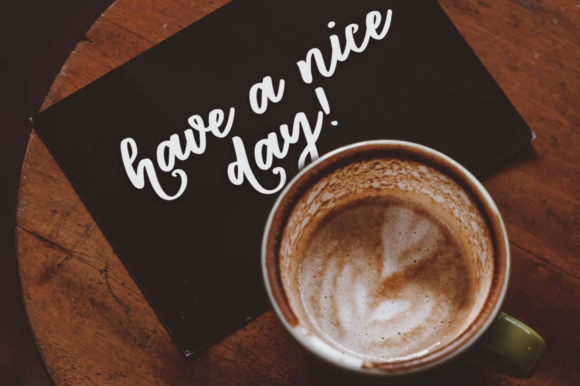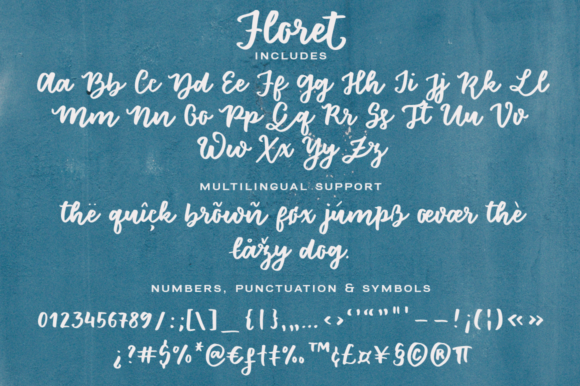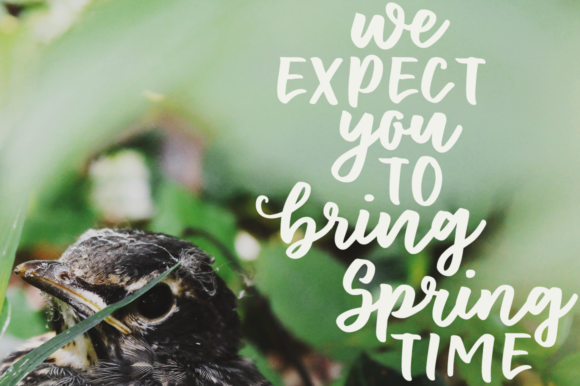
About Floret Font
“Floret” emerges as a fashionable and delicate script font, radiating an aura of elegance and refinement. Its versatile nature makes it a perfect fit for an array of projects, ranging from logos and branding initiatives to labels, photography, watermarks, and special events. This font graces your creations with a captivating script taste, turning each endeavor into a masterpiece of beauty and sophistication.
Visualize “Floret” as a brush that paints your designs with grace and finesse. Its delicate curves and stylish strokes add a touch of luxury to your projects, making them stand out as visual gems. As you infuse this font into your creations, you’ll witness a metamorphosis where your concepts evolve into captivating visual narratives.
The allure of “Floret” goes beyond its visual appeal; it embodies a sense of beauty and artistry. Its script nature exudes authenticity and charm, turning your designs into more than just visuals – they become reflections of elegance and refinement. Each character contributes to the exquisite canvas of your creative vision.
“Floret” becomes an indispensable asset in your design toolkit. Its adaptability enables it to seamlessly complement a variety of styles, themes, and intentions. Whether it’s a sophisticated logo, a charming label, or a memorable watermark, this font elevates the impact of your message.
In a world where design resonates deeply, “Floret” becomes your medium for crafting designs that capture attention and leave a lasting impression. Let its delicate strokes be the artistic embellishments that enhance your creations, infusing them with a touch of script elegance. Embrace the fashionable allure of “Floret” and witness how it transforms your projects into captivating showcases of sophistication, leaving an indelible mark on all who engage with them.